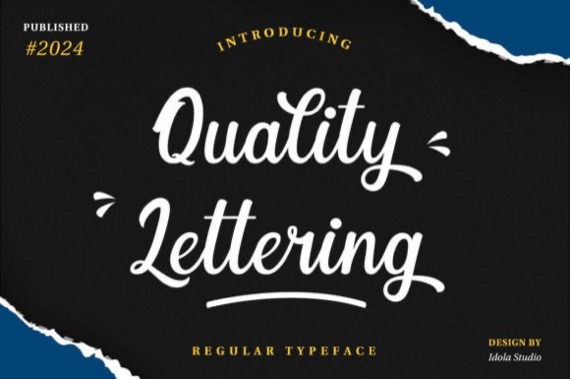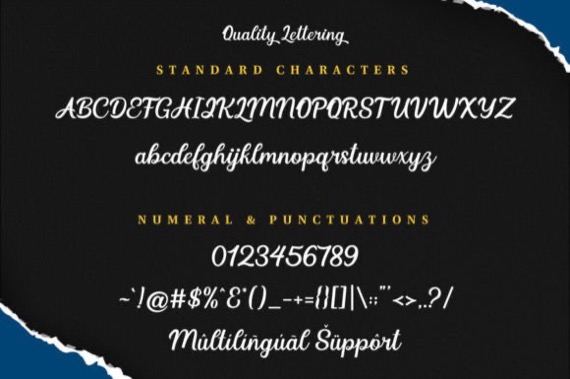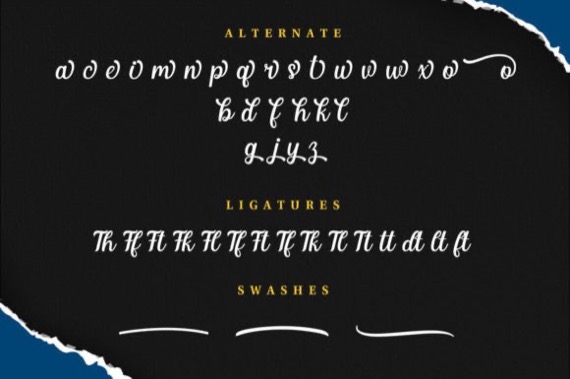
Quality Lettering by Idola Studio has a very minimalist and cool look with a chic touch to it. This script font exudes elegance and sophistication with its graceful strokes and exquisite curves. This handwritten script font combines style and beauty, perfect for adding a touch of class to invitations, branding, and editorial designs. Its meticulous craftsmanship and refined aesthetic make Quality Lettering a standout choice for any project.
Quality Lettering Handwritten Font